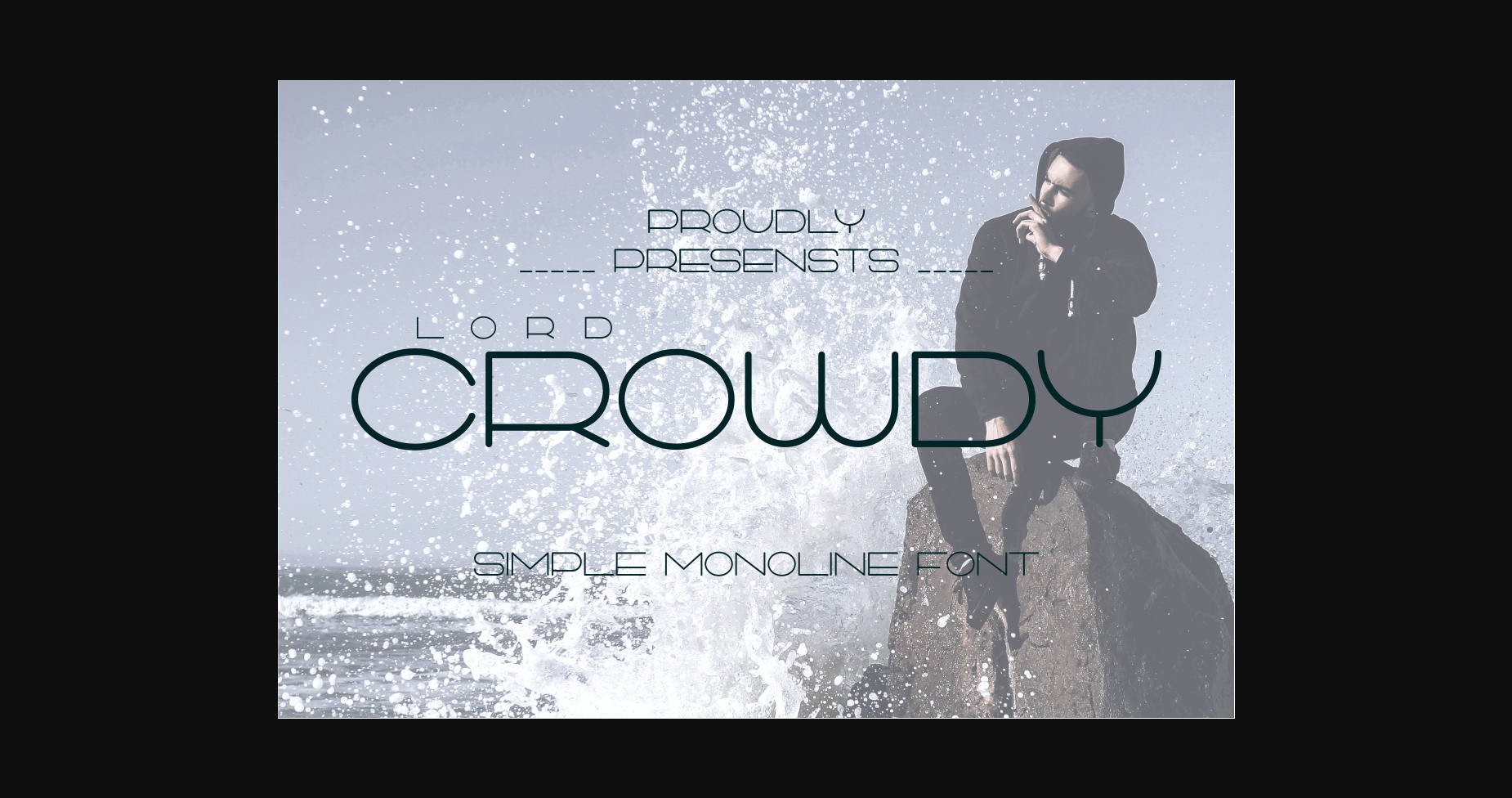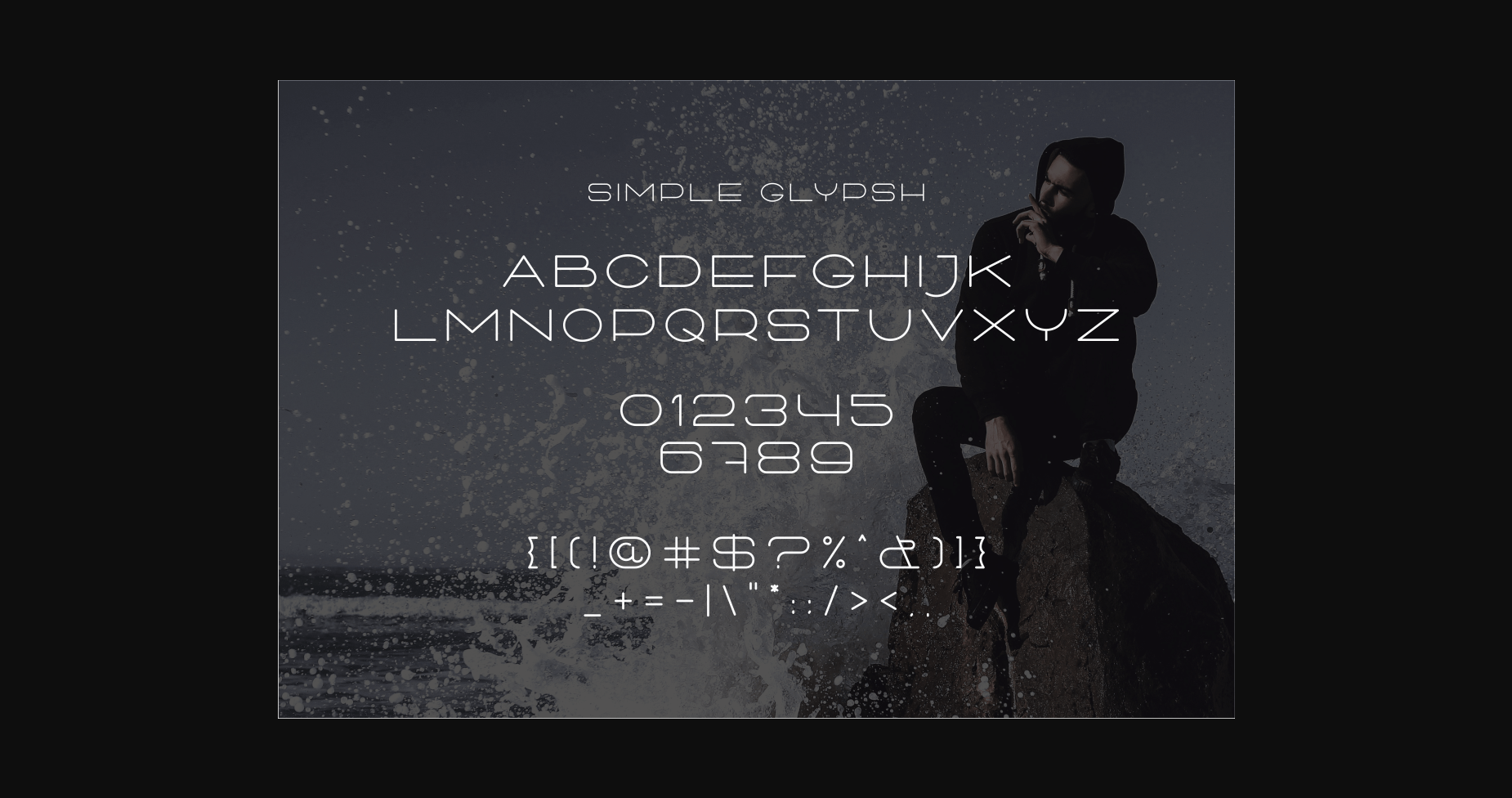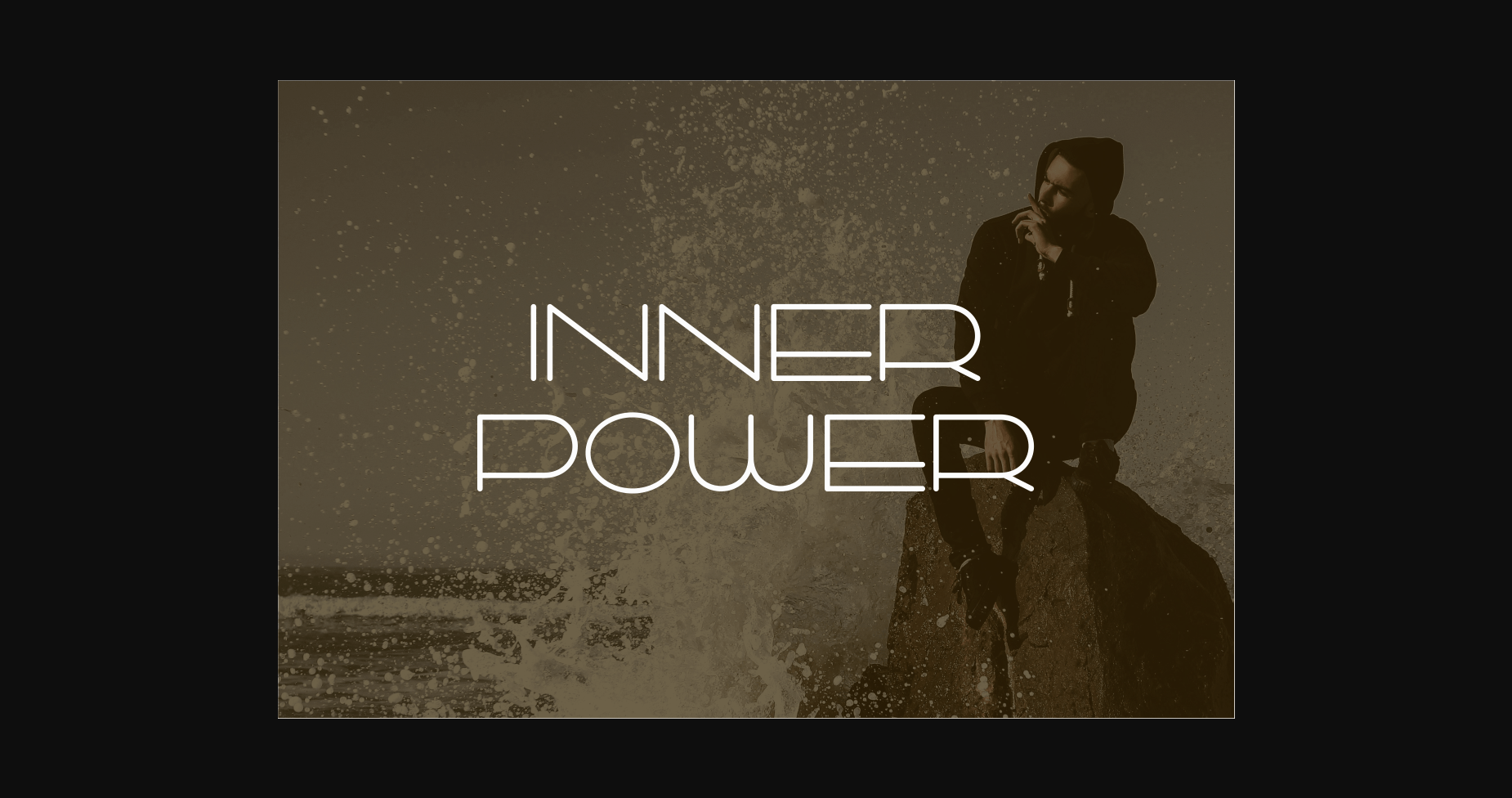
About Lord Crowdy Font
Lord Crowdys is a sans serif font that’s a little wider in thin lines.
Is usually used for elegant and luxury things. It will look stable in your projects.